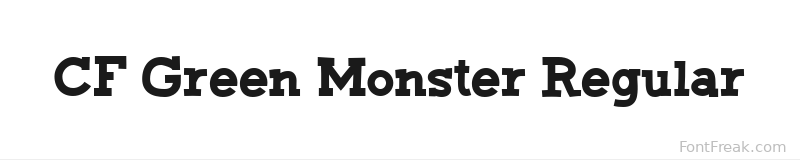
CF Green Monster Regular
CF Green Monster Regular by Cloutierfontes is a distinctive display font that captures attention with its unique character. This font features bold, thick strokes that create a strong visual impact, making it an excellent choice for projects that require a sense of playfulness and energy. The consistent stroke weight adds to its legibility while providing a modern aesthetic. The spacing between characters is well-balanced, ensuring clarity even when used in larger sizes, which enhances its overall appeal.
This font is particularly suited for a variety of creative applications. Wedding invitations can benefit from its fun and lively nature, setting a joyful tone for the celebration. Movie posters will also find a fitting companion in CF Green Monster Regular, as its boldness can effectively convey excitement and adventure. Additionally, restaurant menus can utilize this font to create an inviting atmosphere, while branding materials for small businesses can leverage its unique style to stand out in competitive markets. Content creators will also find this font appealing for social media graphics, ensuring their posts capture attention effortlessly.
The target audience for CF Green Monster Regular includes graphic designers looking to add a playful touch to their work, small business owners aiming to create memorable branding, and content creators who want their visuals to resonate with a wider audience.
What sets CF Green Monster Regular apart is its ability to combine boldness with a sense of whimsy, making it not just a font, but a tool for storytelling. Its versatility ensures that it can be adapted to various contexts while maintaining its distinctive charm. For those seeking a fresh and engaging typeface, the CF Green Monster Regular font free download is an excellent choice that promises to elevate any design project.